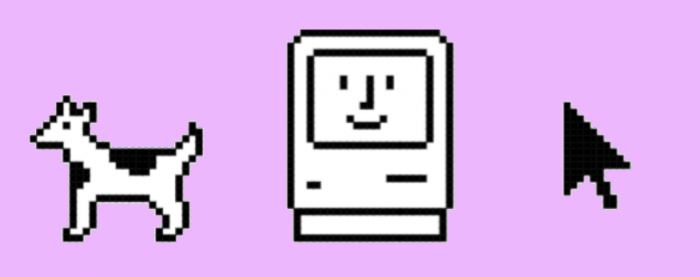
• Last week my beloved iMac stopped working for good. It's been more than a decade of a fantastic relationship, but now I have to accept the fact that it won't be with me anymore... With that in mind, I've collected  these vintage Mac icons, most (maybe all) made by the great Susan Kare in the best 80's. Curiously, you will see that many of them have remained until today with very few modifications, but others (that dot matrix printer, those faxes, those floppy disks...) have definitely passed into the History. I remember with particular displeasure the d***  Bomb, which appeared unexpectedly  when the computer crashed -too frecuently- and you then lost all the work not saved manually. Freaky old times. My favourite character still being Clarus, the dogcow (at the Z, of course). Hope you like them.
A: Mac-happy / B: Mac-unhappy / C: Mac-working / D: Bin / E: Bomb / F: Watch / G: Save / H: Save-as / I: File-text / J: File-vector / K: File-graphic / L: New / M: New-text / N: New-vector / O: New-graphic / P: New-type / Q: Compress / R: Font-kit / S: Font-stack / T: Alert / U: Prompt / V: AppleLink / W: Fax / X: Fax-to / Y: Command / Z: Dogcow (Clarus).
a: Print / b: Arrow / c: Hand / d: Inbox / e: Inbox-in / f: Inbox-out / g: Mail-drown / h: Mail-wings / i: News-headlines / j: Newspaper / k: Easy-access / l: Quick-access / m: Direct-access / n: Folder / o: Folder-speedy / p: Folder-hierarchy / q: Compress / r: Box / s: Desk-drawer / t: Top-drawer / u: Global / v: Library / w: Personal-archive / x: Threaded / y: Volume / z: Zoom.
0: OK / 1: New-blank-file / 2: Pencil / 3: Eraser / 4: Lasso / 5: (Idem) / 6: Brush / 7: Fill / 8: Spray / 9: Apple-logo.
Also, some letter widths (S, a, e, n, q, s, 4, and 5) may need to be checked, as when viewed in pixel view, there is some unintended anti-aliasing on the edges
@Goatmeal: Thank you, Maestro. It's really been relaxing to draw these glyphs with just squares... At some point I'll be adding some others that I've put on hold.